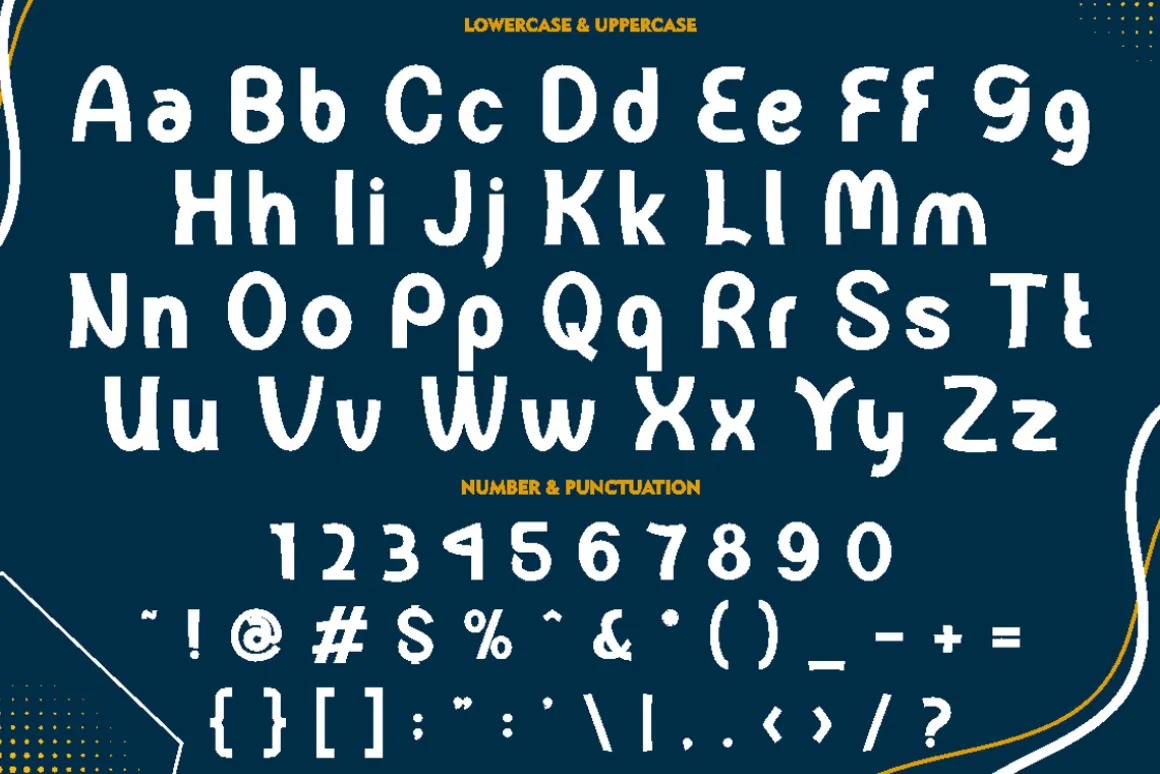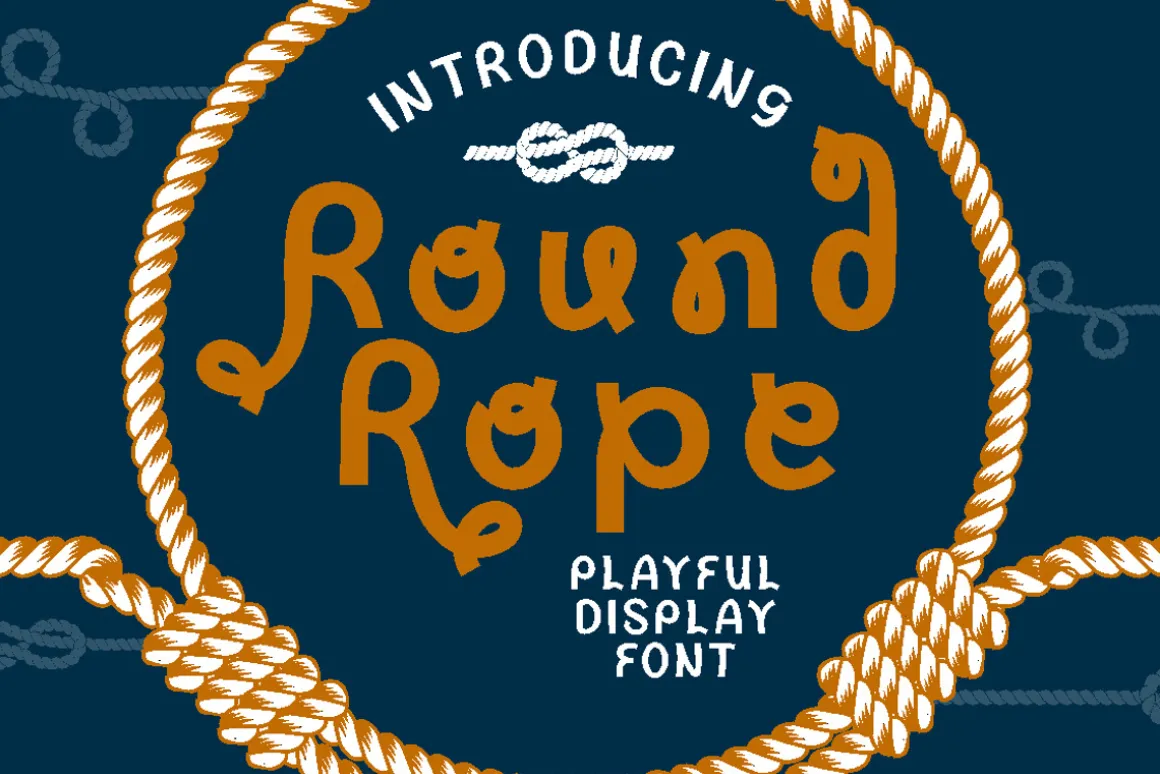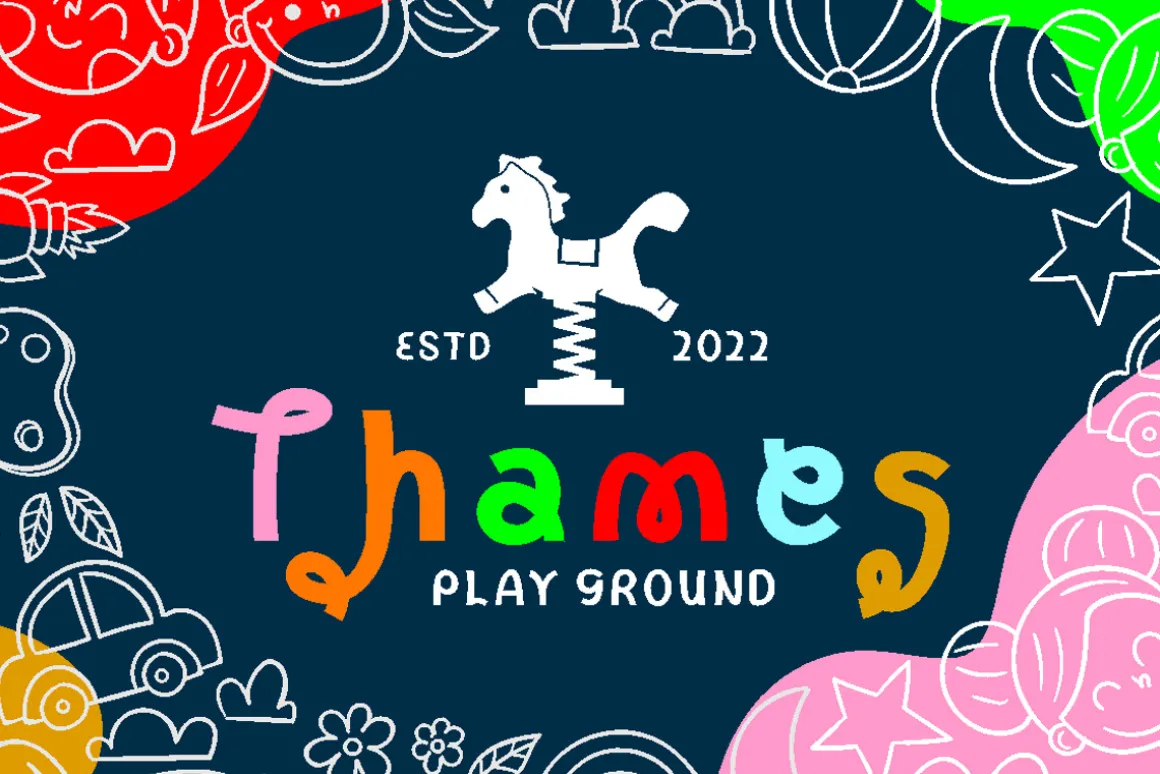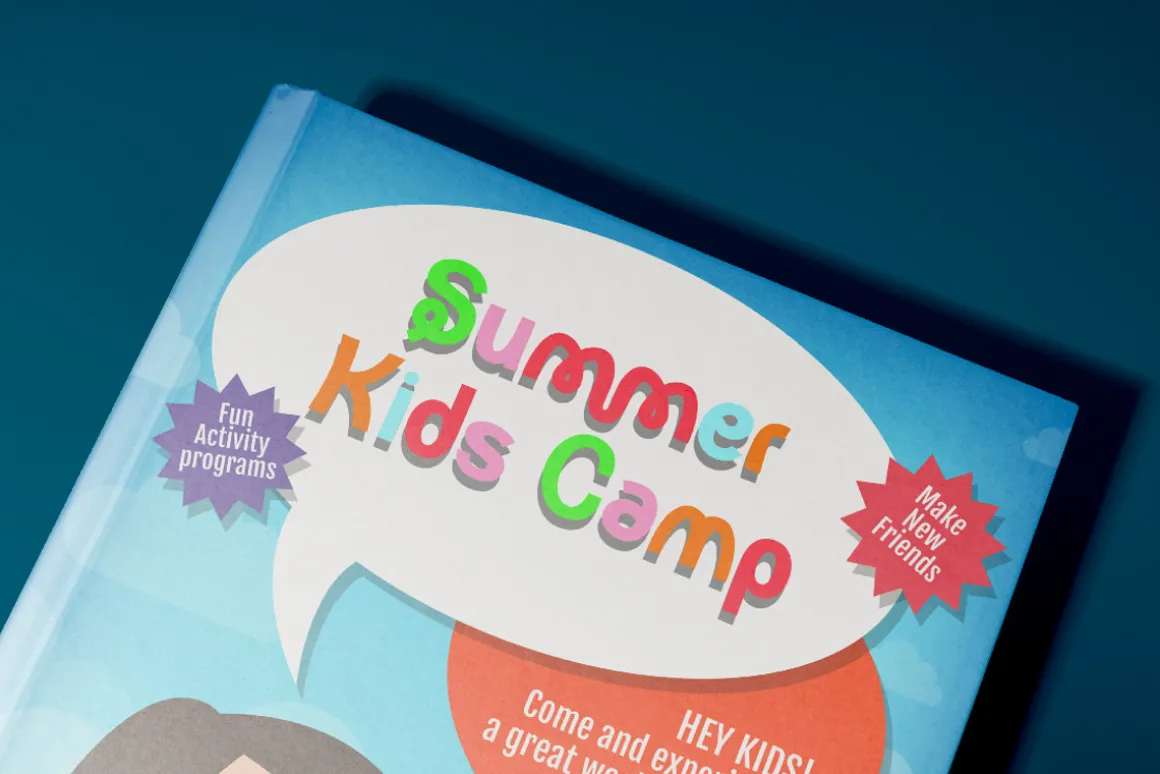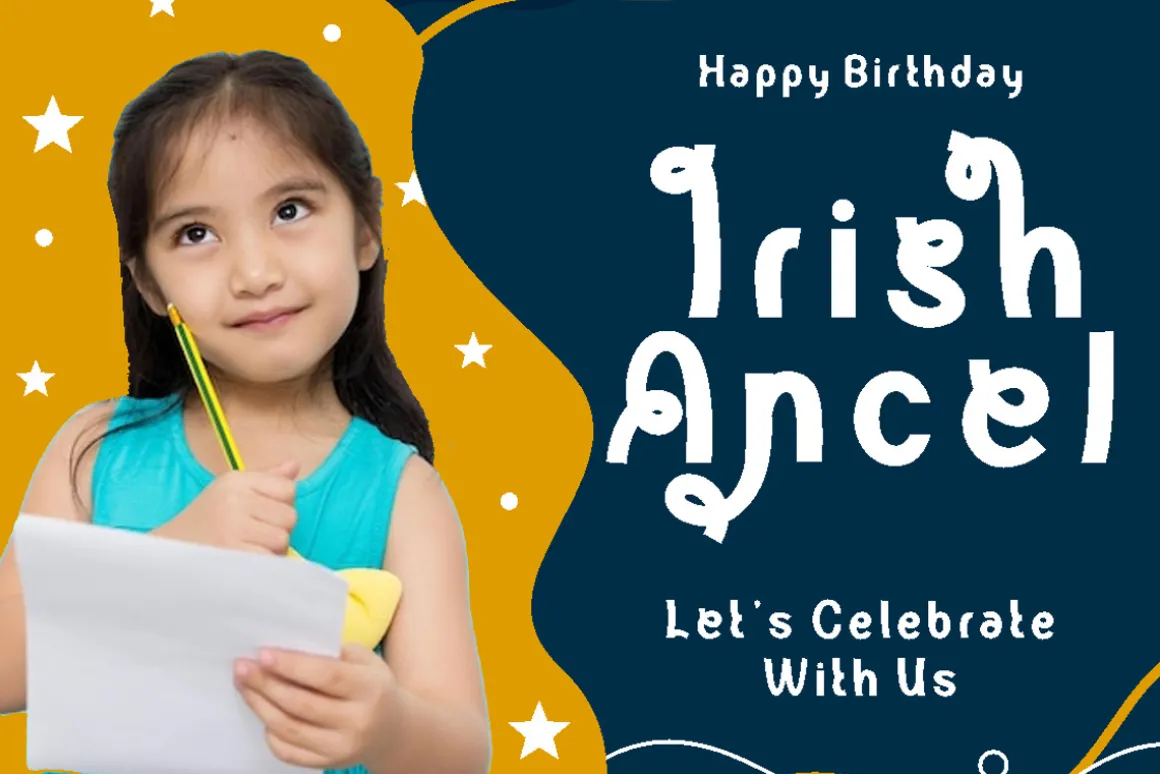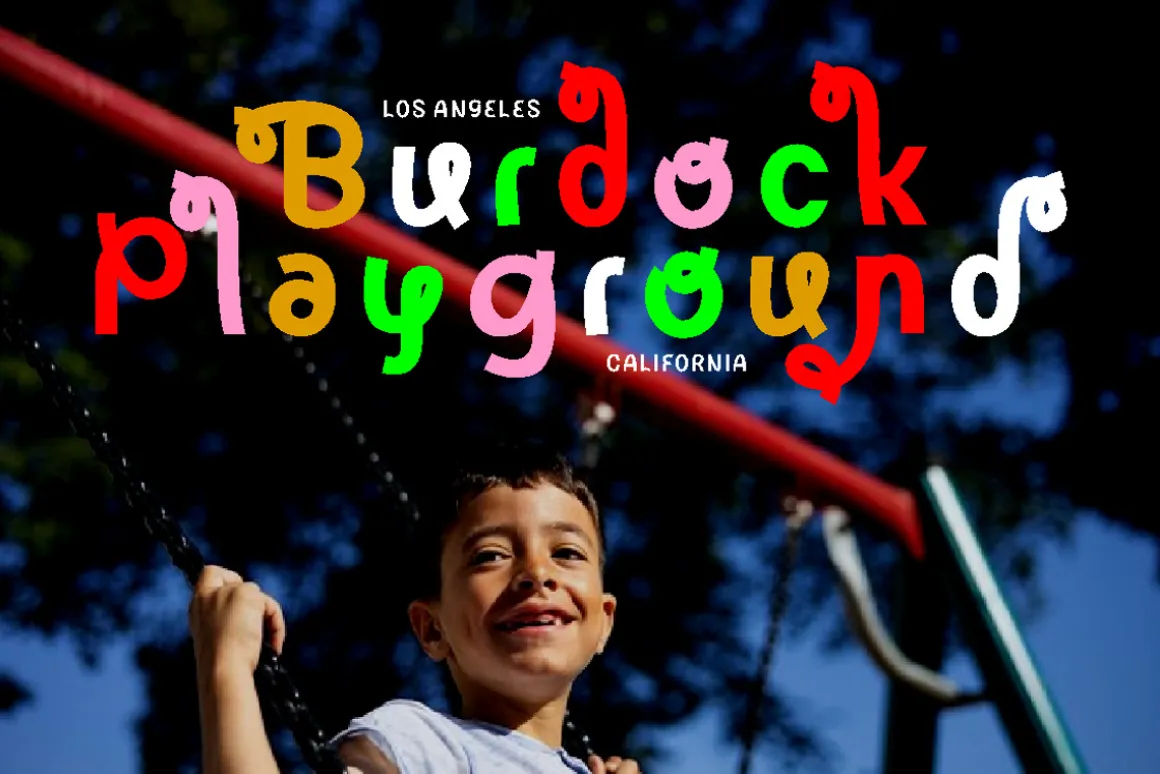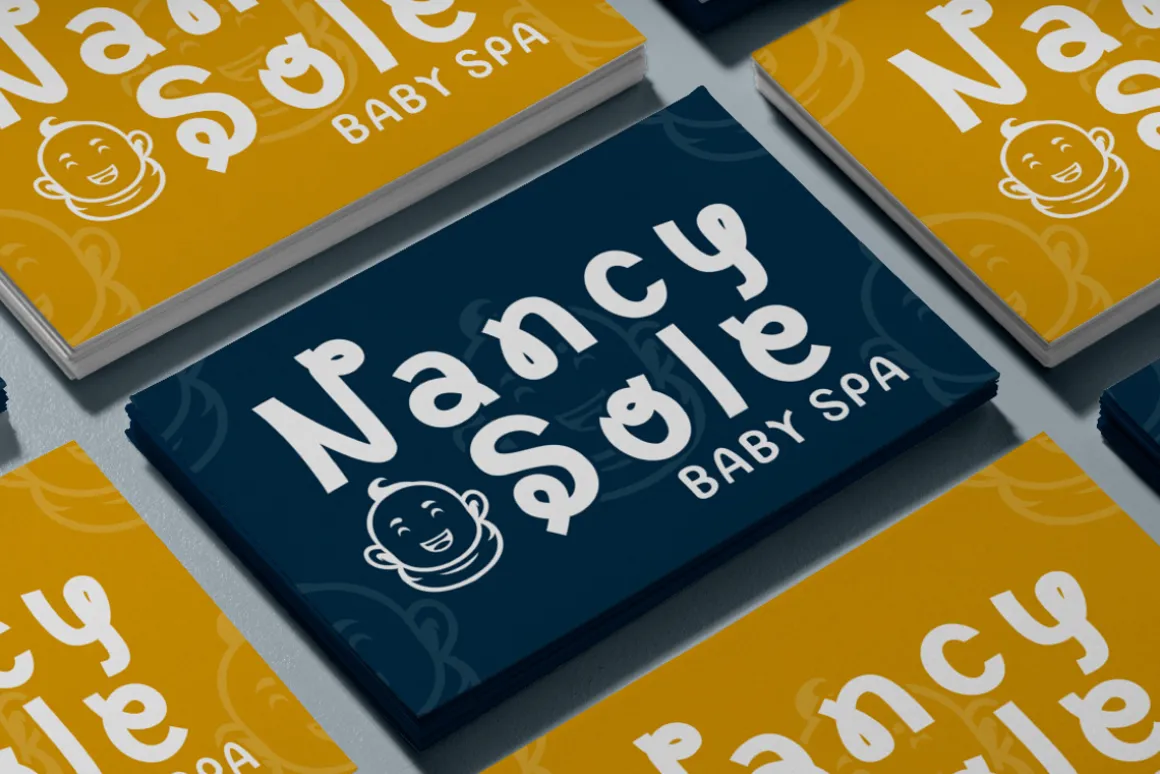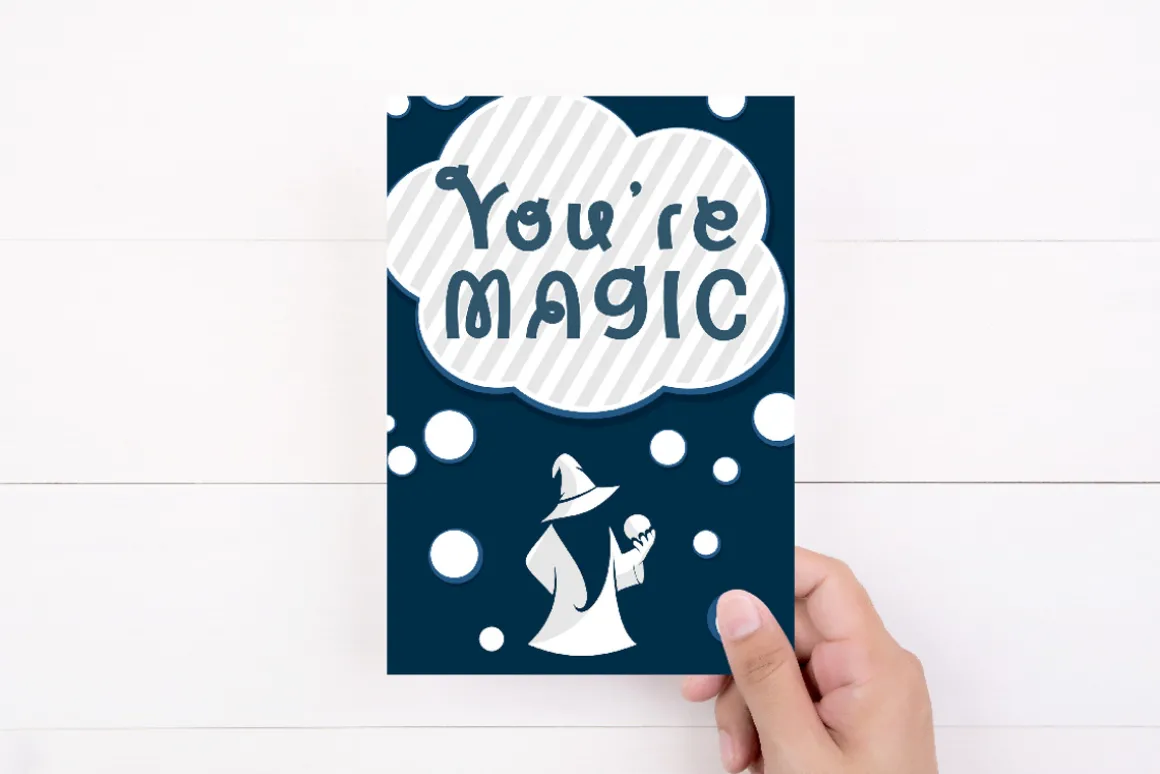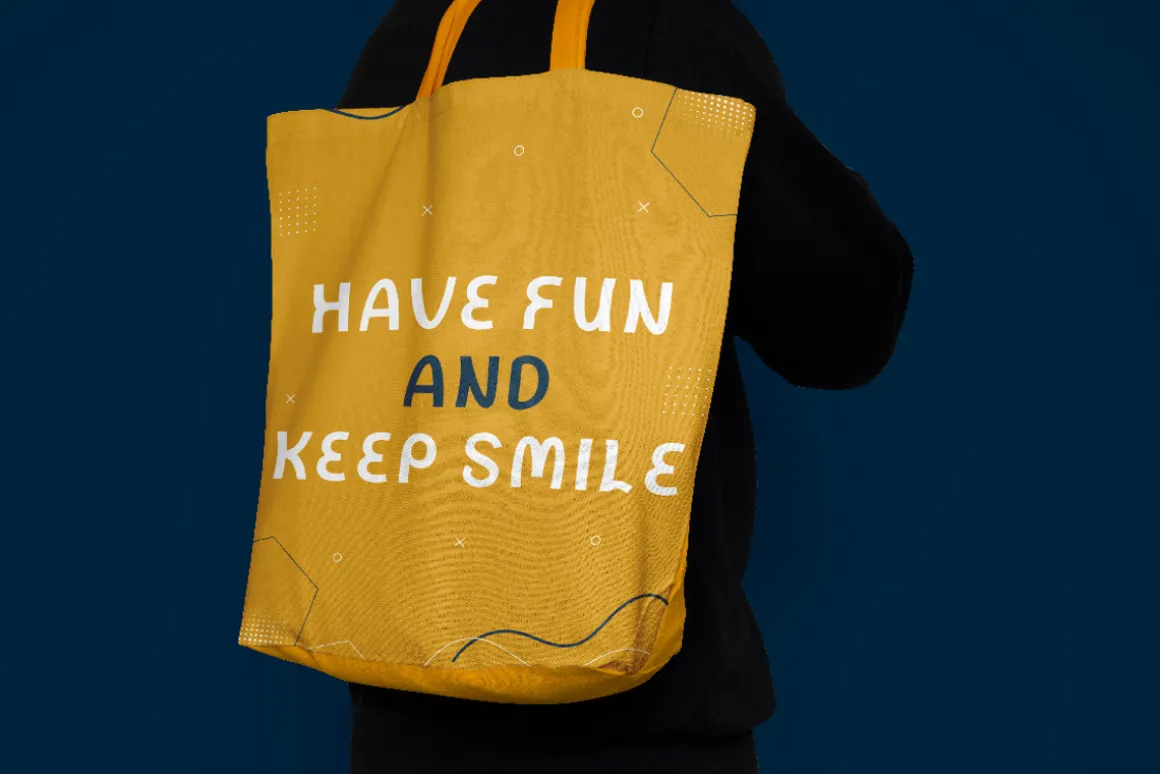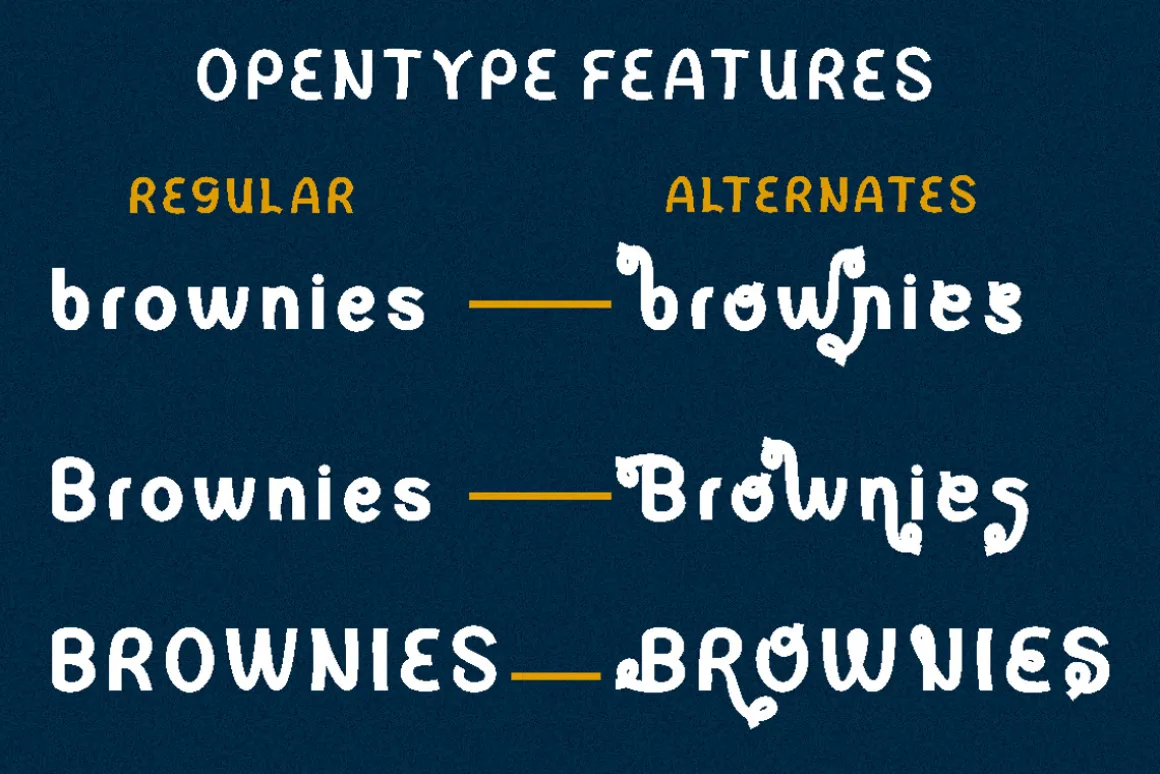
Round Rope – Playful Display Font
Round Rope – Playful Display Font is a fun and colorful typeface that is perfect for adding a playful touch to any design. This font was inspired by the idea of creating a font that is both playful and whimsical, perfect for children’s books, branding, packaging, posters, and any design that requires a fun and lighthearted touch. The font is designed with a playful, rounded appearance and features a hand-drawn feel that adds to its charm.
Round Rope is a versatile typeface that can be used for a variety of design projects. Its playful and whimsical appearance makes it perfect for use in children’s books, cartoons, and other designs that require a fun and lighthearted touch. It’s also great for branding, packaging, and posters, where its unique style can help your designs stand out.
This font comes with a range of features that make it a versatile and functional typeface. It includes uppercase and lowercase letters, as well as Opentype features such as alternates and ligatures, which allow you to create unique designs and add even more character to your text. It also includes support for multilingual characters, making it easy to use in designs that require different languages.
Round Rope is a fun and playful font that is sure to bring a smile to your face. Its unique style and playful appearance make it a great choice for a wide range of design projects. Whether you’re designing for children or adults, this font is sure to add a touch of whimsy and playfulness to your work.
In summary, Round Rope – Playful Display Font is a fun and colorful typeface that is perfect for adding a playful touch to any design. Its unique style and playful appearance make it a great choice for a wide range of design projects, including branding, packaging, posters, and children’s books. With its range of features and file formats, it’s also a versatile and functional typeface that can be used across different platforms and devices.